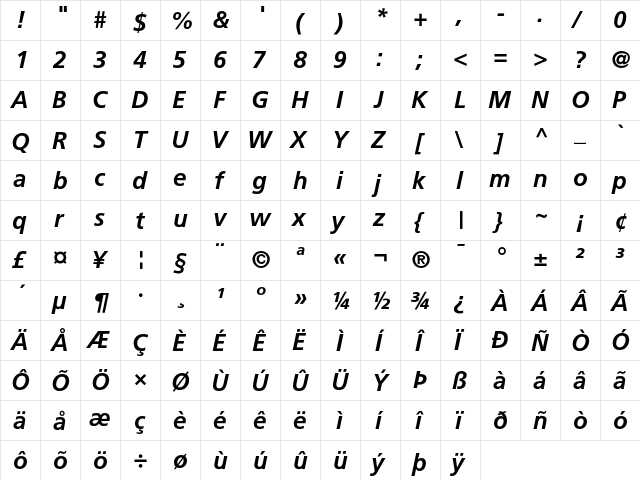
Frutiger 66 Bold Italic Font Preview
Frutiger 66 Bold Italic
Frutiger 66 Bold Italic Font Details
| Style | 66 Bold Italic |
Design Context for Frutiger Typeface
Frutiger offers clean, dependable letterforms without strong stylistic allegiance, making it a practical choice for designers who need flexibility. The dynamic lean of this cut emphasises speed and emphasis in any layout. The heavy weight commands attention and anchors typographic hierarchies.
Pro Tip: Use Frutiger for emphasis, pull quotes, and subheadings where its slanted energy can add rhythm to the layout.